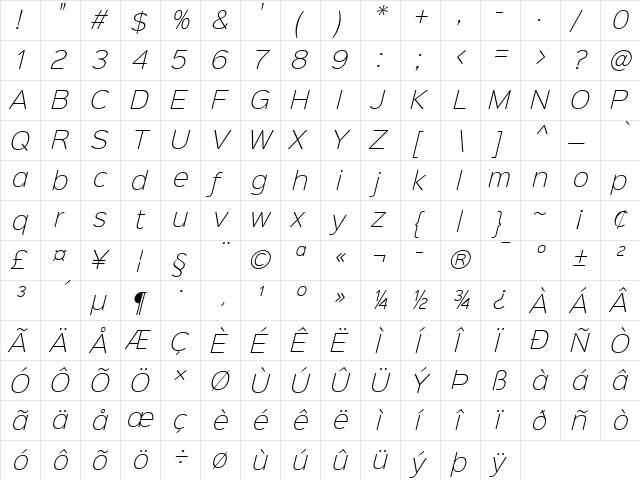
Sinkin Sans 200 X Light Italic 200 X Light Italic
| Foundry | K-Type |
| Designer | Keith Bates |
| Copyright | Sinkin Sans 200 X Light Italic by Keith Bates 014 https://www.k-type.com Sinkin Sans is a simple, pleasantly proportioned sans serif with tiny, inconspicuous notches that sink into vertical strokes adding highlights to congested corners. |
Design Context for Sinkin Sans 200 X Light Italic Typeface
Sinkin Sans 200 X Light Italic offers clean, dependable letterforms without strong stylistic allegiance, making it a practical choice for designers who need flexibility. The dynamic lean of this cut emphasises speed and emphasis in any layout. Its slender proportions lend an understated elegance to any composition.